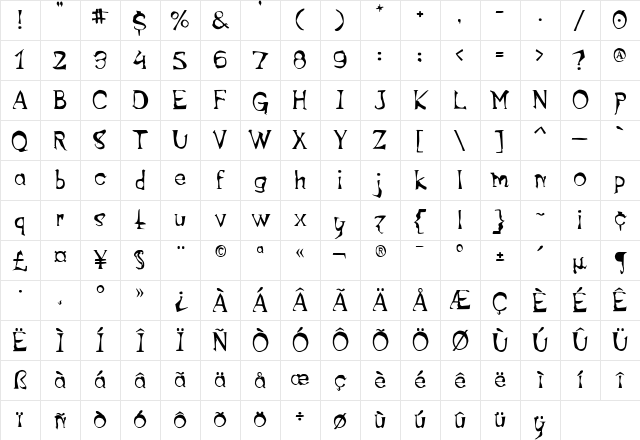
FreeDom Regular Free Font
FreeDom Regular
FreeDom Family
FreeDom Regular
Design Context for FreeDom
FreeDom is a composed and adaptable typeface that performs quietly and consistently across a wide range of design contexts.